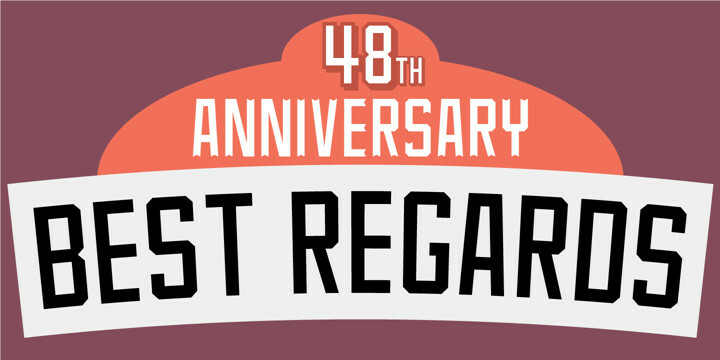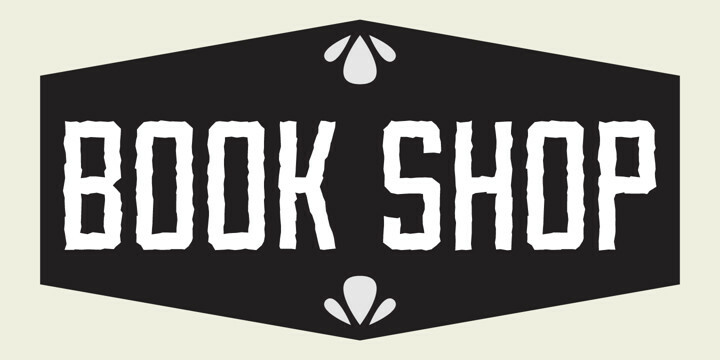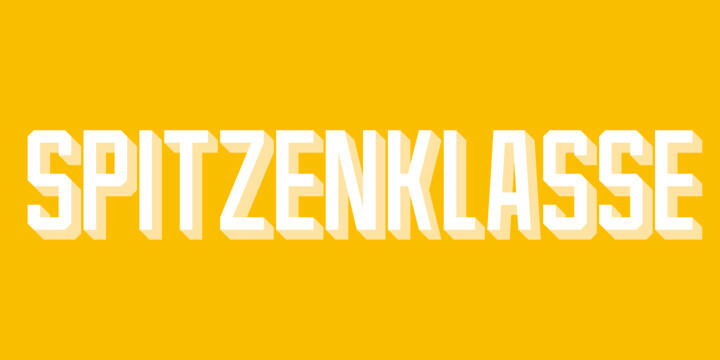
Spitzenklasse Font Family
Spitzenklasse Font FamilySpitzenklasse is for that project of yours, where you need something really stylized, legible and beautiful at the same time!